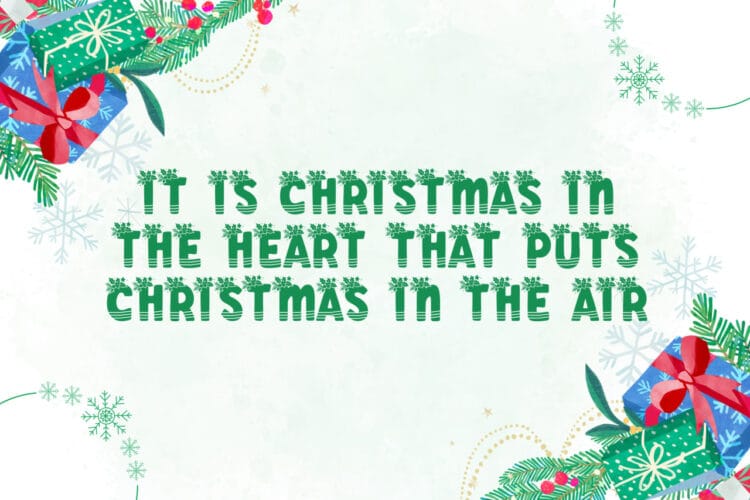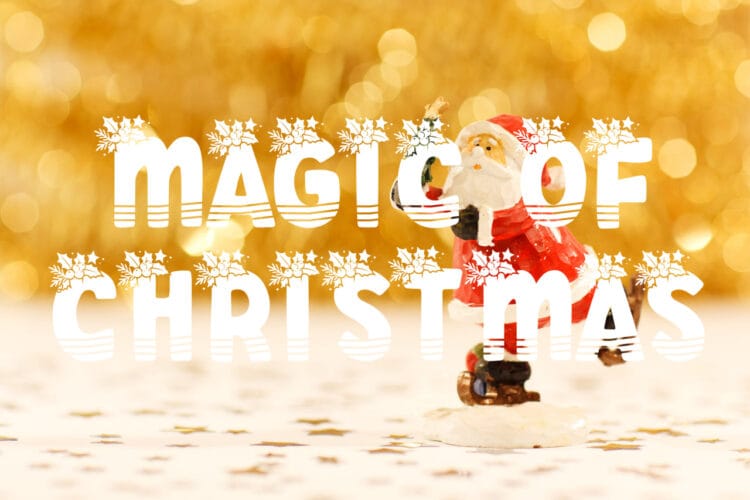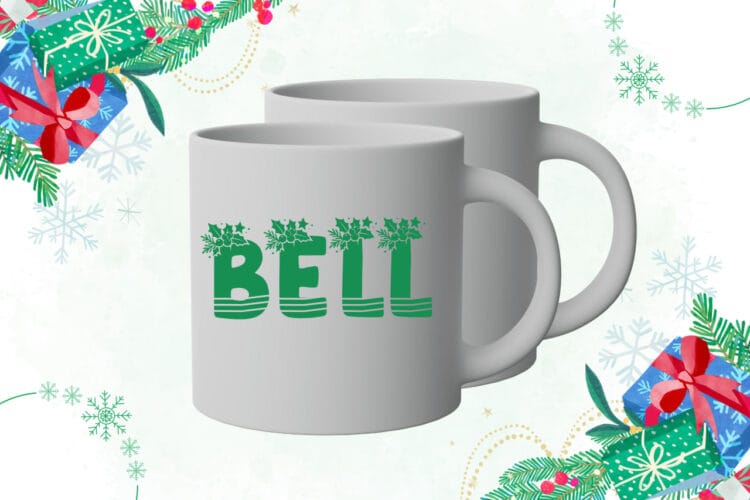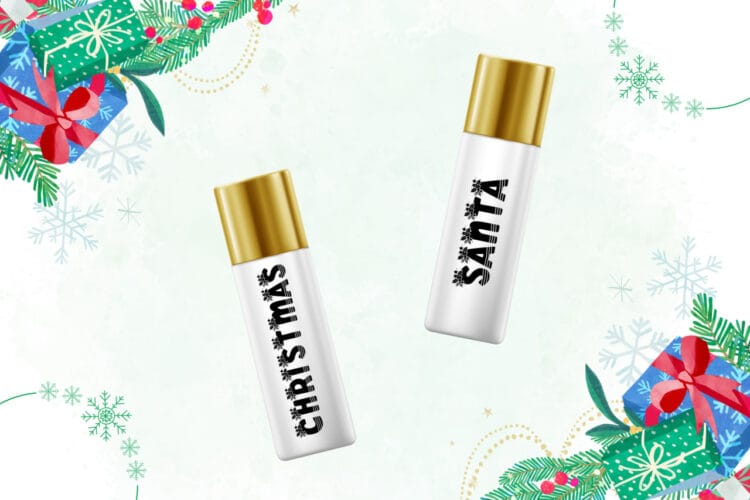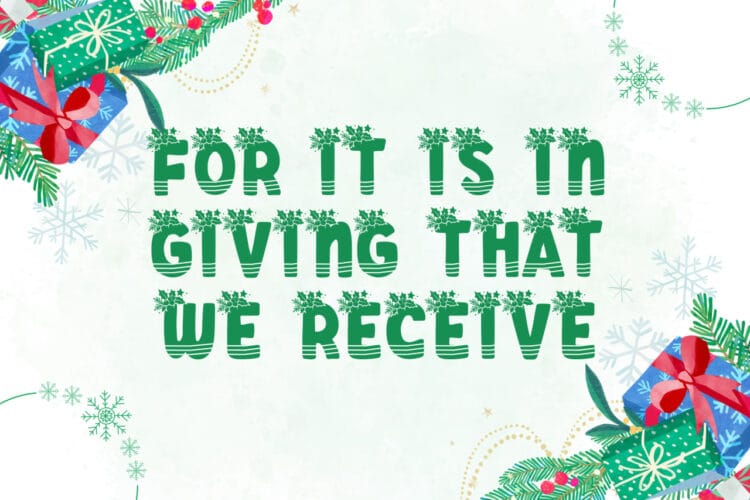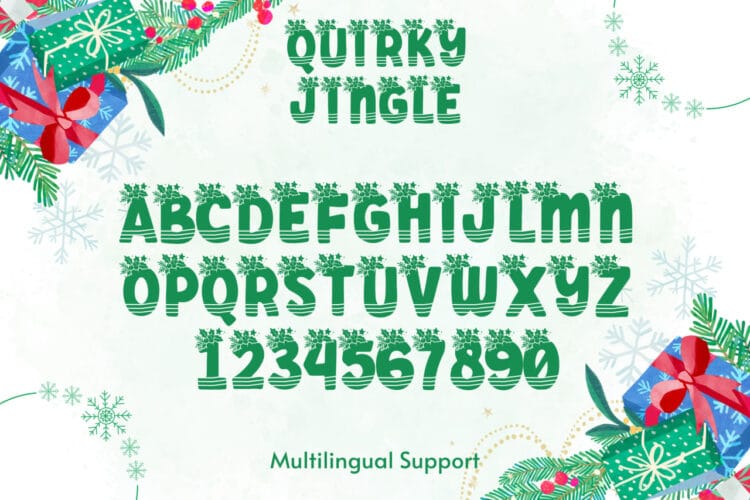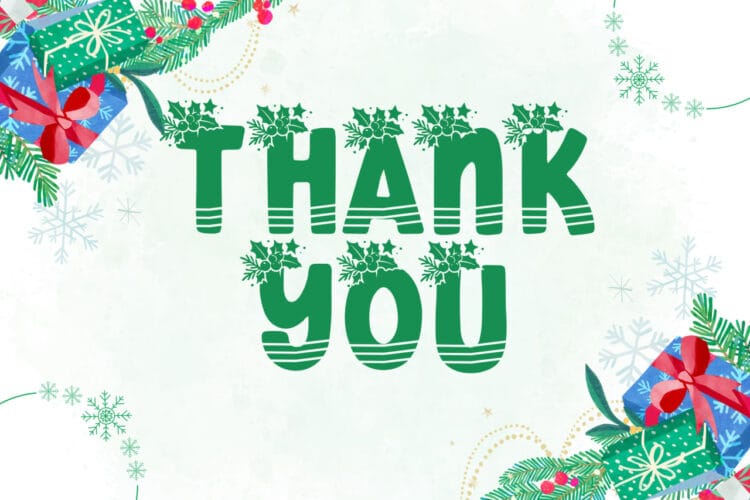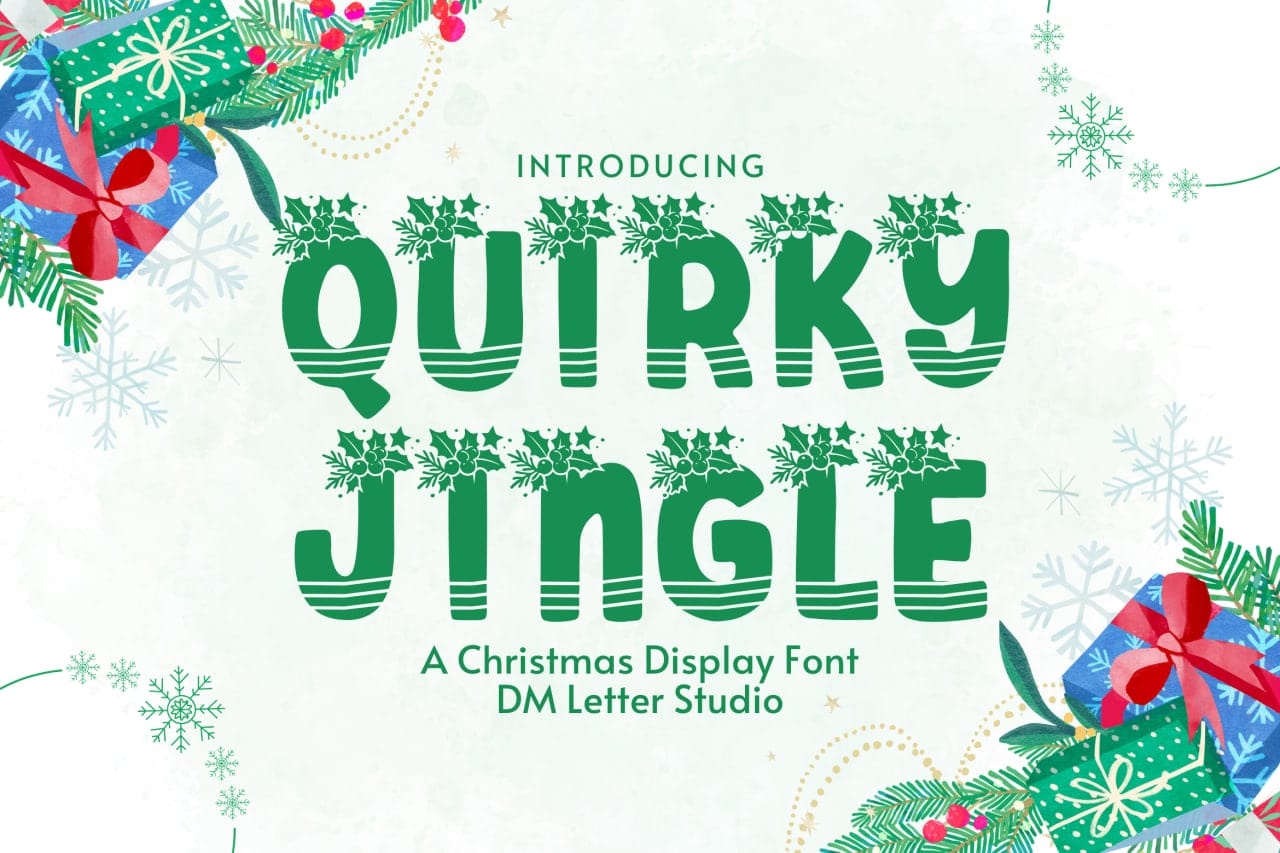
Meet Quirky Jingle Font
Quirky Jingle Font wraps your words in cozy, fun holiday energy. Letters feel bold and rounded. Details hint at bells, ribbons, and carols. Because the shapes stay thick and clear, your message reads fast on screens and in print. Use it for Christmas shirts, tags, cards, mugs, and festive social posts. Moreover, it looks great on both light and dark backgrounds, so you can swap themes with ease.
Where Quirky Jingle Font shines
Set short phrases like “Jingle All the Way,” “Joyful,” or a family name. Then add tiny stars, bells, or snowflakes around the text for instant charm. Since spacing is tuned for headlines, layouts come together in minutes. As a result, you can build full holiday bundles for tees, ornaments, gift tags, and printables with less tweaking. Plus, titles stay clear on mobile, which helps your listings stand out in busy feeds.
Design merry pieces with Quirky Jingle Font
Keep copy short and let Quirky Jingle Font do the talking. Pair it with a clean sans for captions and small details. Next, explore color stories like holly red and pine green, cocoa and cream, or icy blue and silver. Because the forms are chunky and friendly, glitter textures, soft glow, and subtle grain all work very well. However, avoid long sentences on tiny labels. Names, dates, and bold phrases deliver the strongest impact.
Styling ideas for festive lettering
Use arched text for a classic mug or badge look.
Add sticker borders for planners, digital stickers, and kids’ products.
Try layered colors for a puffy-print or retro holiday effect.
Mix Quirky Jingle Font with simple icons for fast card and tag sets.